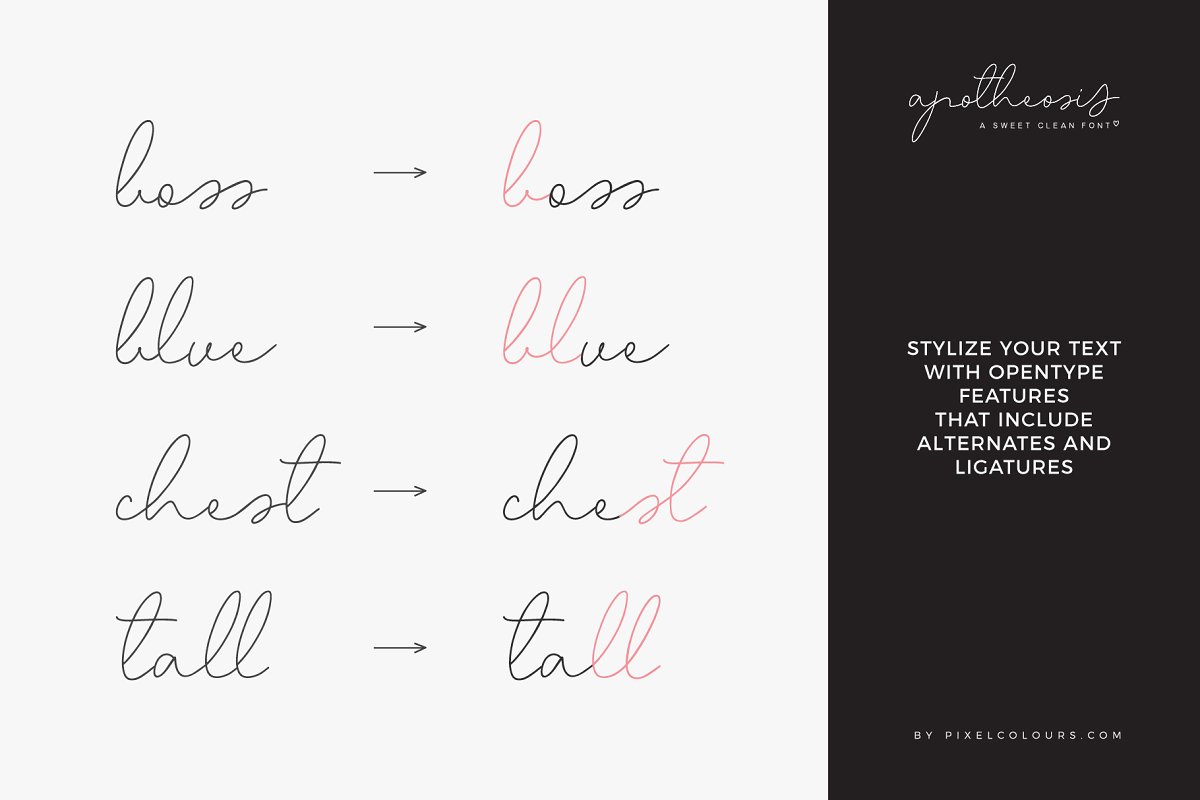
About the Script Font Apotheosis
Apotheosis is a chic, clean handwritten font with modern flows, Includes automatic ligatures, stylistic alternates and a beautiful big ending s that gives statement to the words, It also includes as a bonus a small uppercase sans to make the perfect combination, A beautiful font great for branding, labeling, packaging, etc, Opentype FeaturesThis font contains opentype features and must be used in a program that supports opentype like Adobe to access the alternates in the Glyphs panel